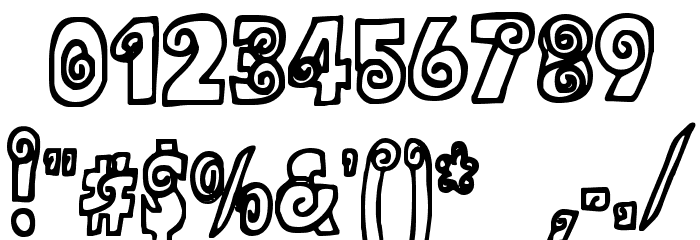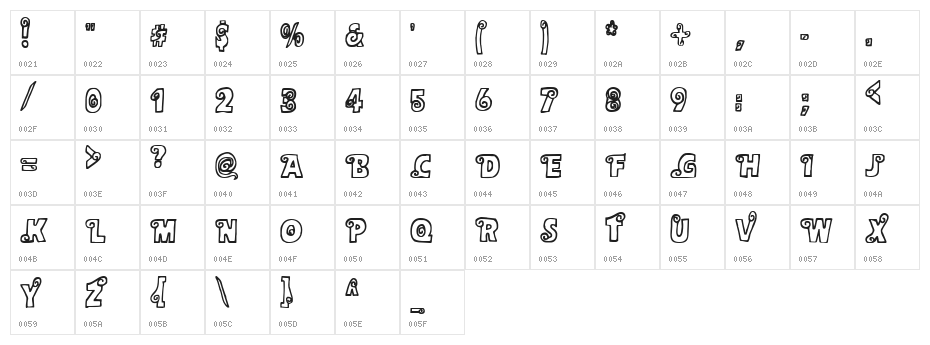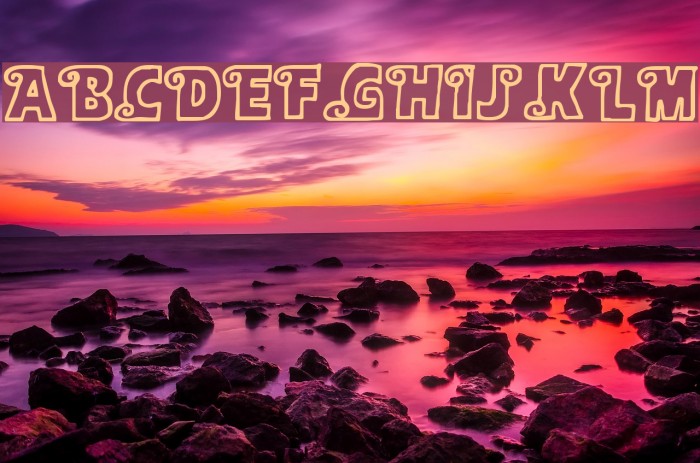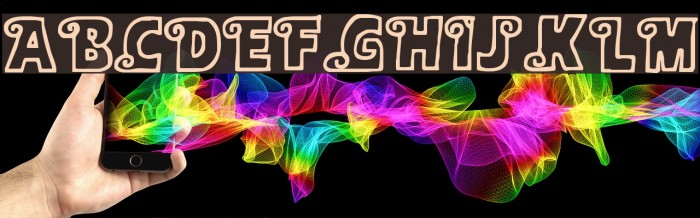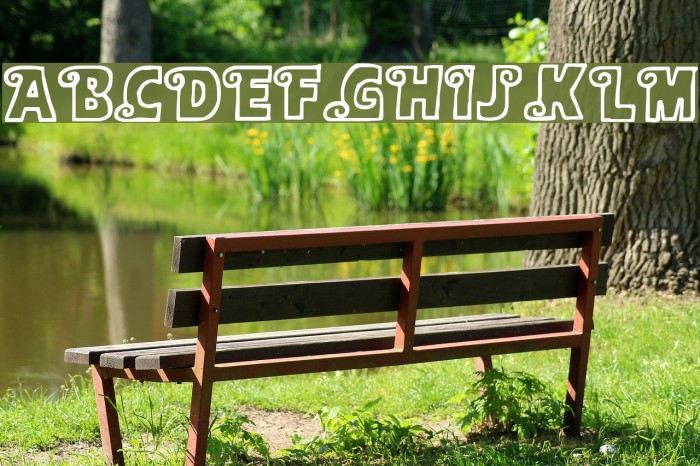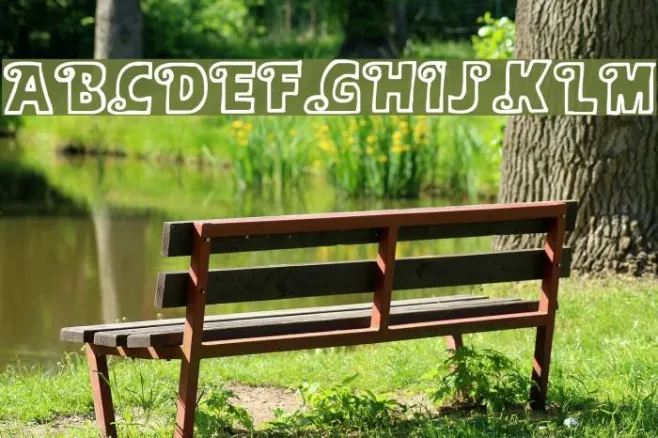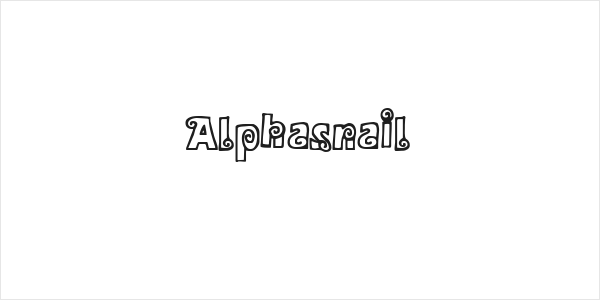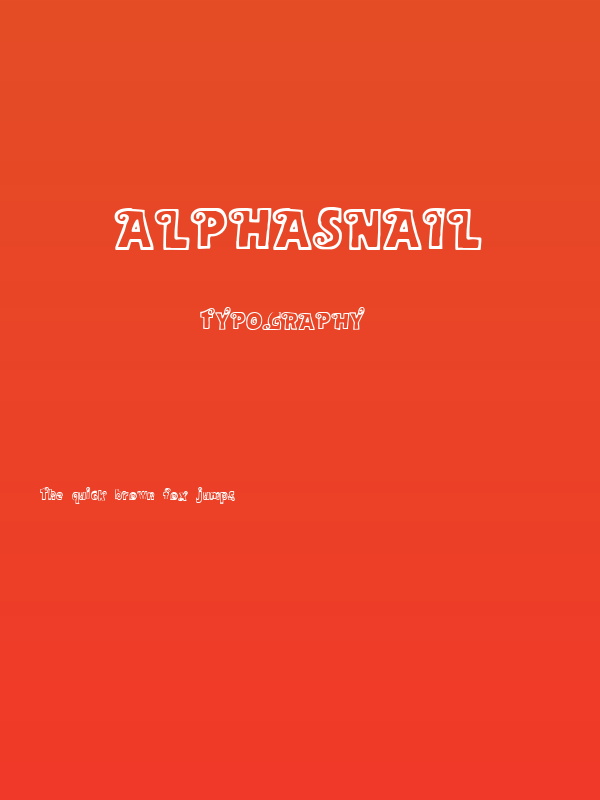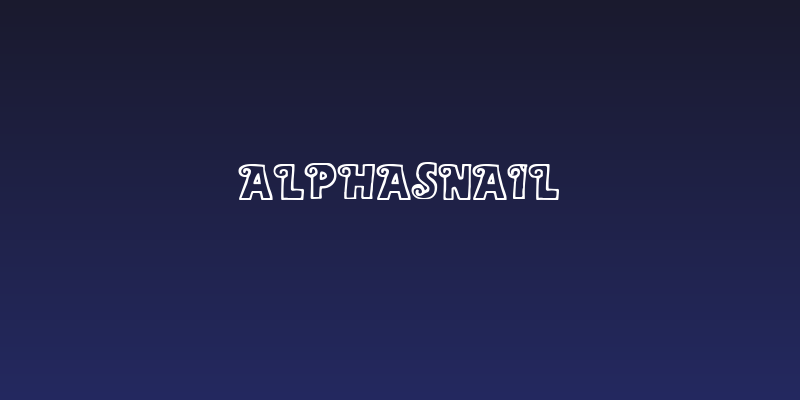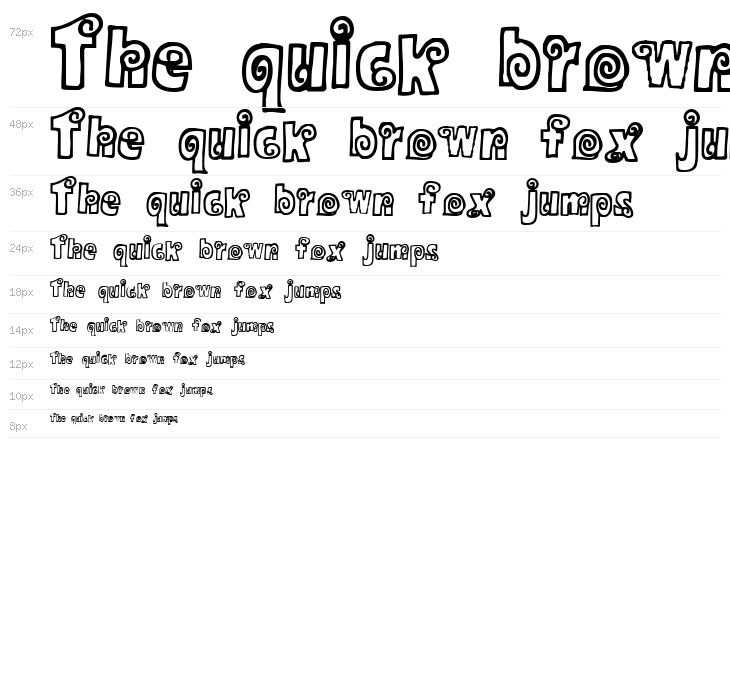
Alphasnail Font
Alphasnail Description
This playful and whimsical font features bold, rounded characters with a unique outline style. Each letter is designed with a sense of fun and creativity, incorporating subtle curves and loops that give it a lively appearance. The uppercase and lowercase letters maintain a consistent style, with the lowercase letters slightly more compact. Numbers and special characters follow the same playful design, making the font versatile for various uses. The overall look is bold and eye-catching, perfect for projects that require a touch of personality and flair.